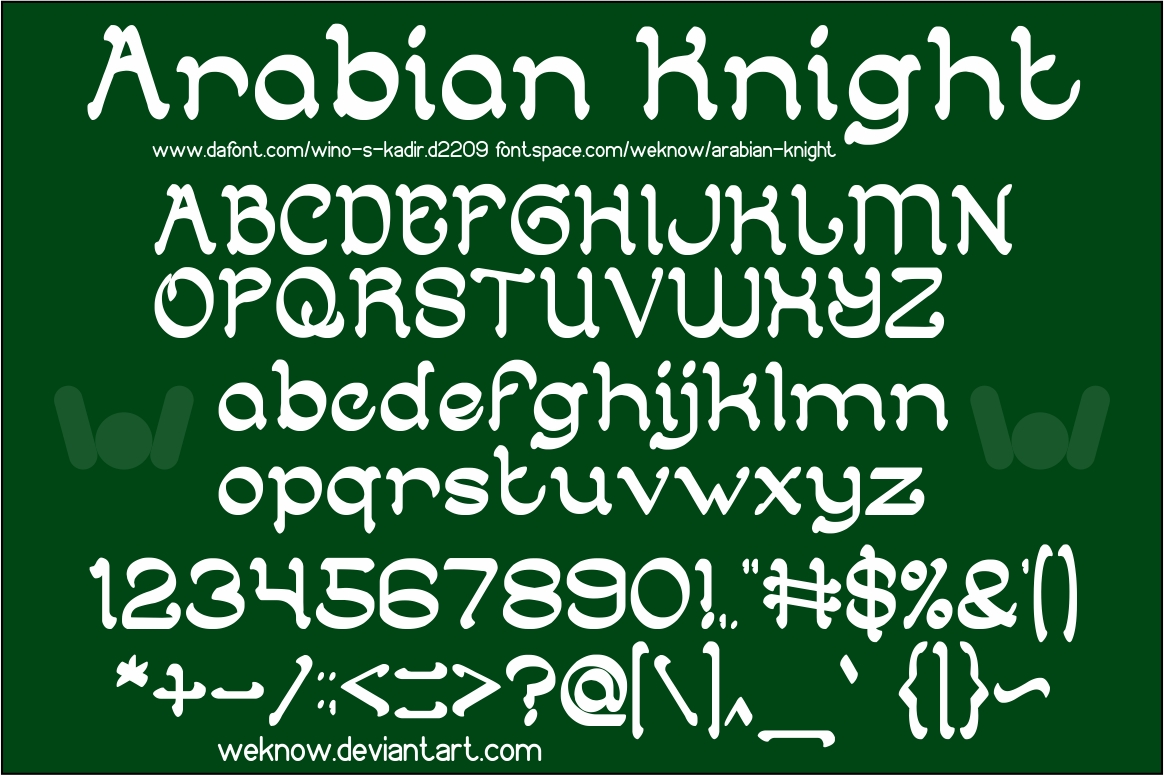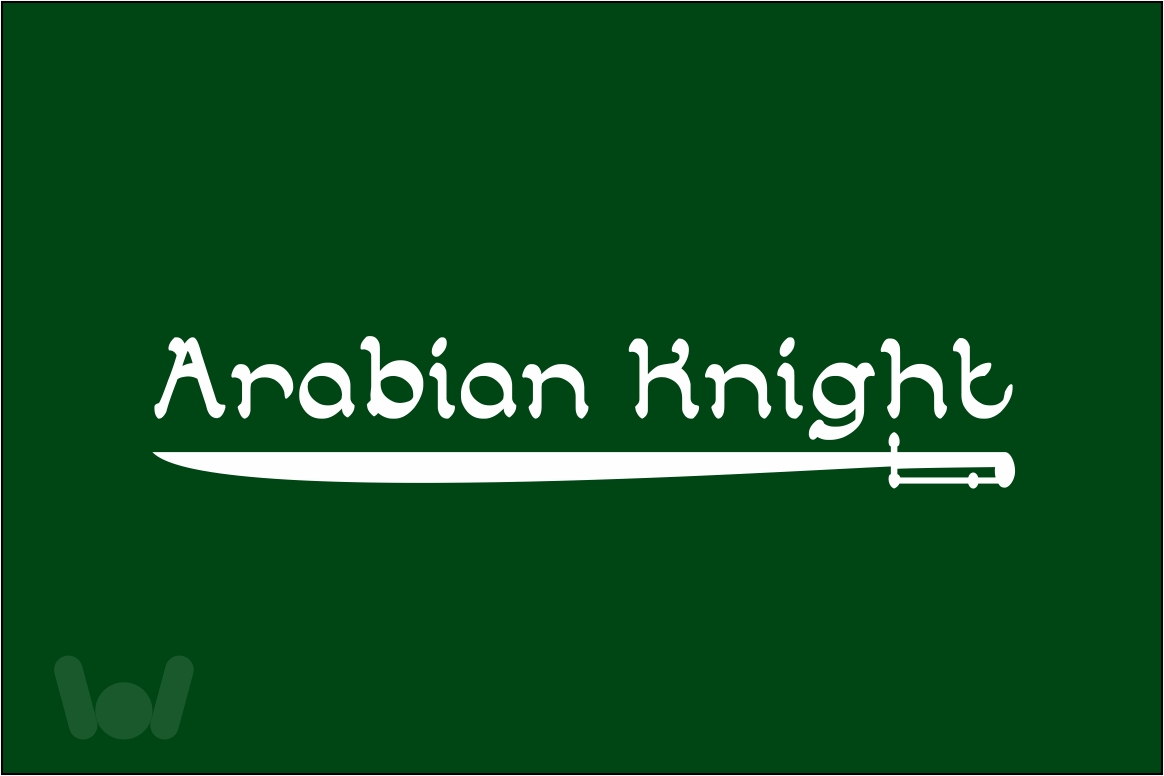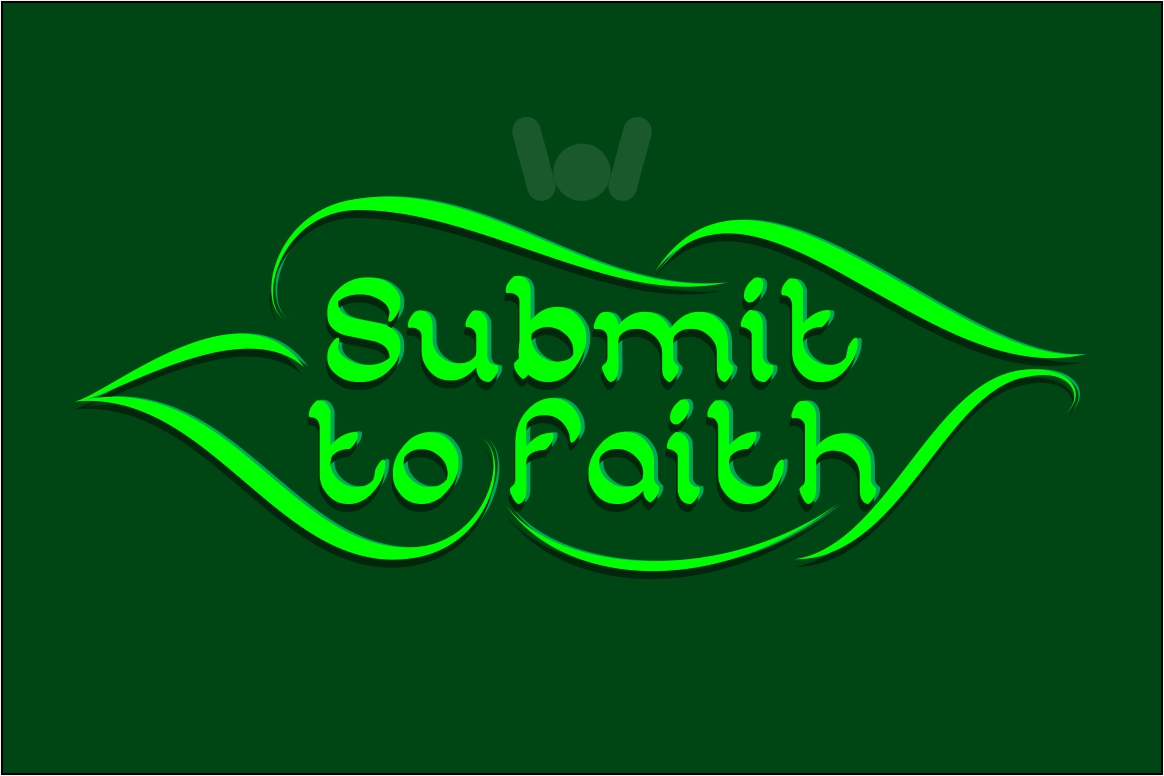
Arabian Knight Font
About Arabian Knight Font
Arabian Knight is gorgeous decorative font, suitable for graphic and stylish displays. This font comes in a large variety of styles for maximized options in style and design.